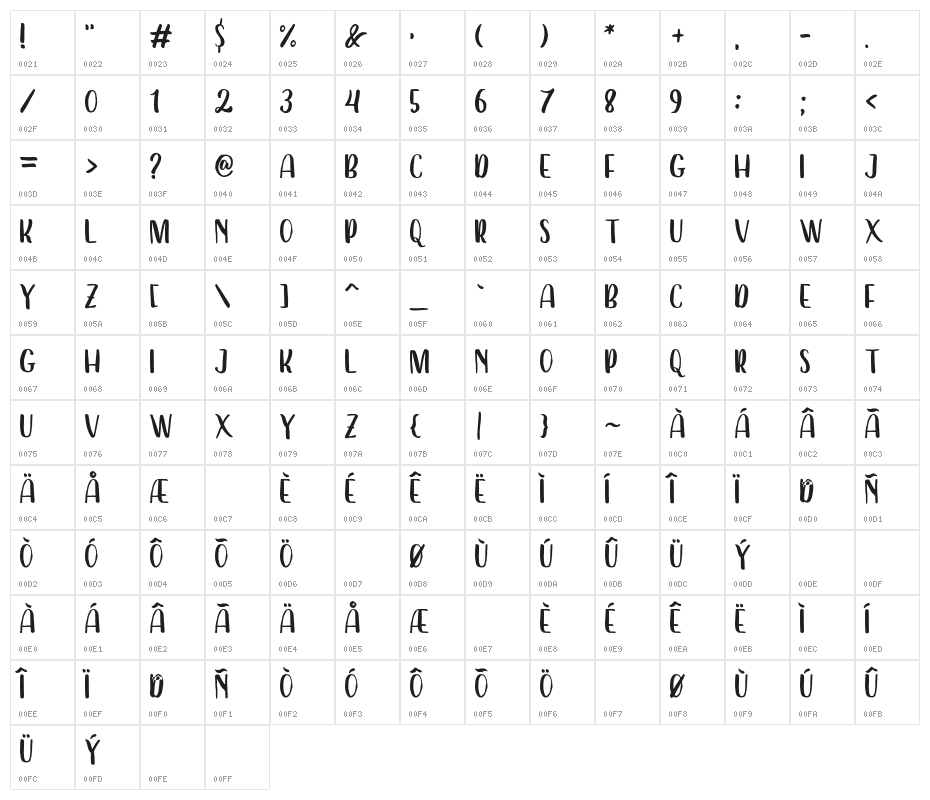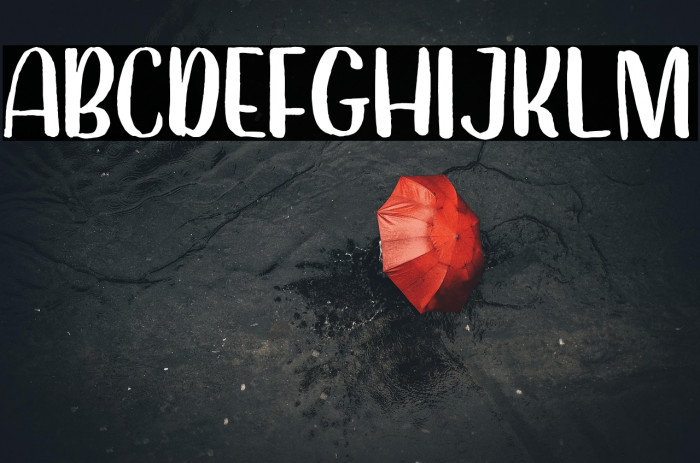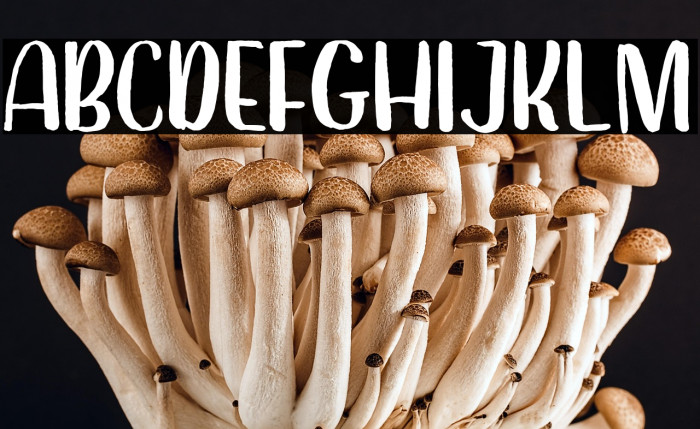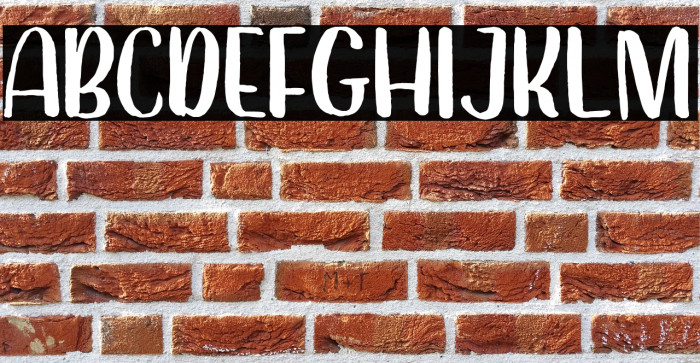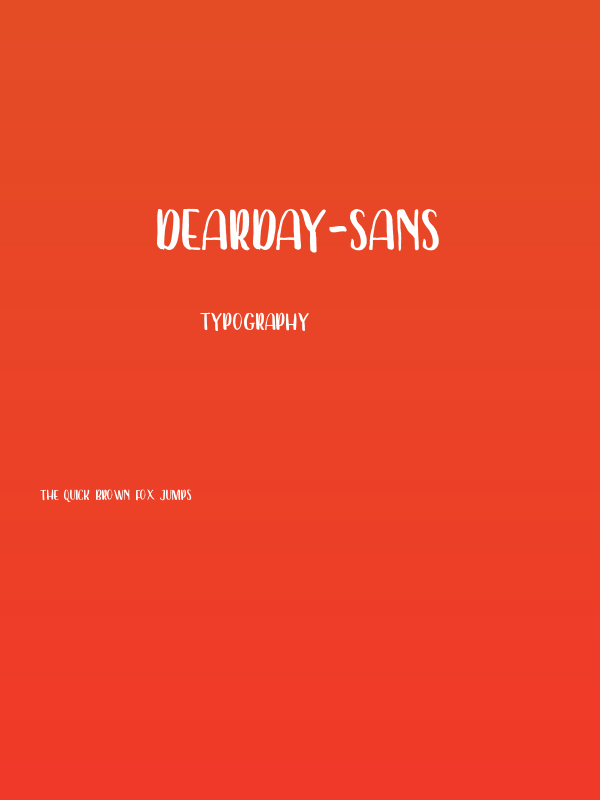
Dearday-Sans Font
Dearday-Sans Description
This font features a bold, handwritten style with a playful and artistic flair. The characters are crafted with a brush-like texture, giving them a dynamic and energetic appearance. The uppercase and lowercase letters maintain a consistent flow, while the numbers and special characters complement the overall aesthetic. The strokes are thick and expressive, creating a strong visual impact. This font is ideal for projects that require a personal touch or a creative, informal vibe.
| Proposed Projects | Ideal for greeting cards, posters, branding, social media graphics, and creative invitations. |